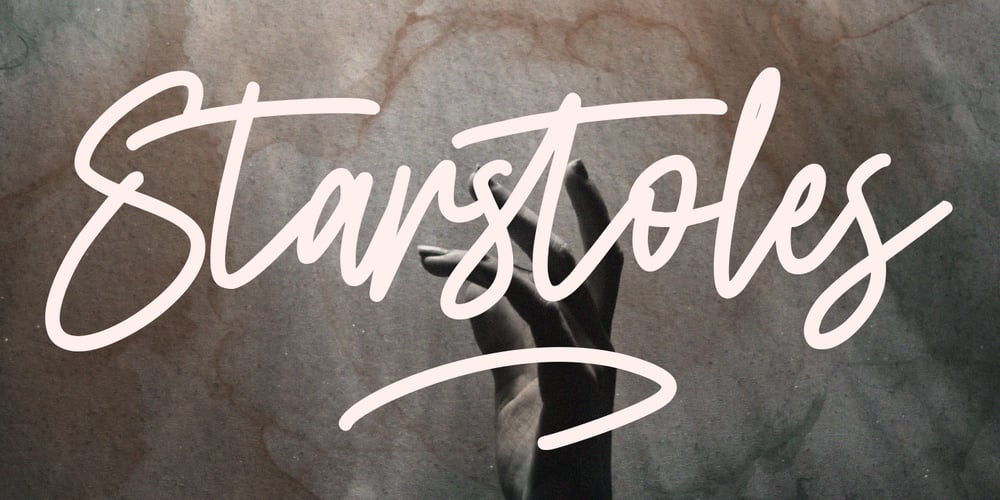
Starstoles
Starstoles font
Starstoles Font Family was designed by Gilang Maulana and published by Maulana Creative. Starstoles contains 1 styles and family package options. Give your designs an authentic handcrafted feel. “Starstoles Signature Script Typeface” is perfectly suited to signature, stationery, logo, typography quotes, magazine or book cover, website header, clothing, branding, packaging design and more.Thanks for use this font ~ Maulana